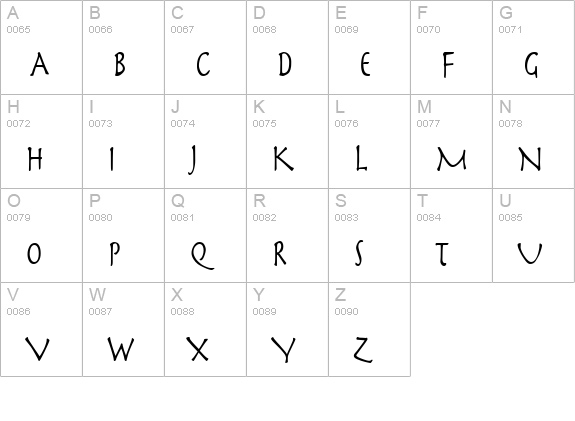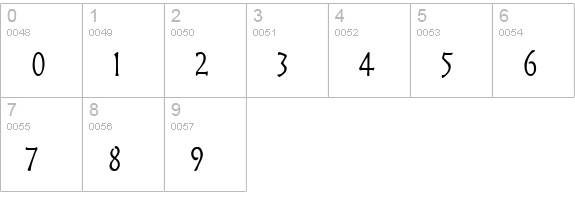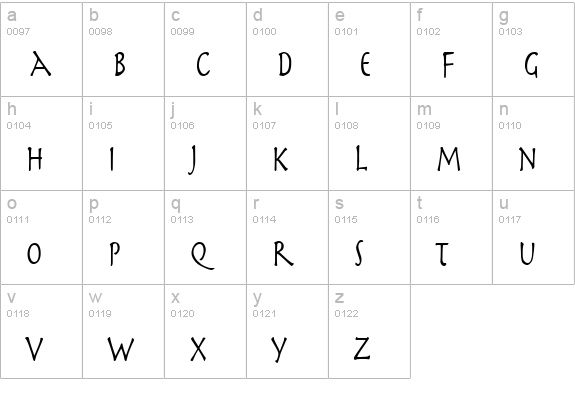
Mythology Thin Normal is a delicate, low-contrast variant in the Mythology typeface family \xE2\x80\x94 well suited to fashion editorial, minimal branding, and high-contrast display.
Mythology Thin Normal font is a sleek and elegant typeface that exudes a sense of mythical charm and sophistication. With its delicate lines and balanced proportions, this font is perfect for adding a touch of mystique to any design project. Whether you're creating a logo, branding materials, or a stunning website, Mythology Thin Normal font will elevate your work to new heights. And the best part? Mythology Thin Normal font is completely free to download at FontsMarket.com. This means you can access this stunning typeface without breaking the bank, making it an ideal choice for designers looking to add a touch of magic to their creations. Don't miss out on this opportunity to enhance your projects with the enchanting beauty of Mythology Thin Normal font. Download it today and let your creativity soar!